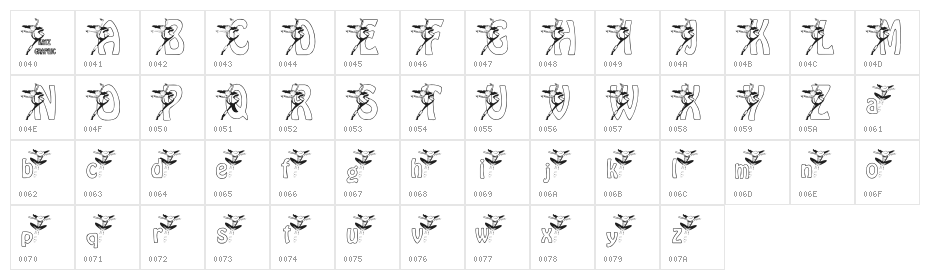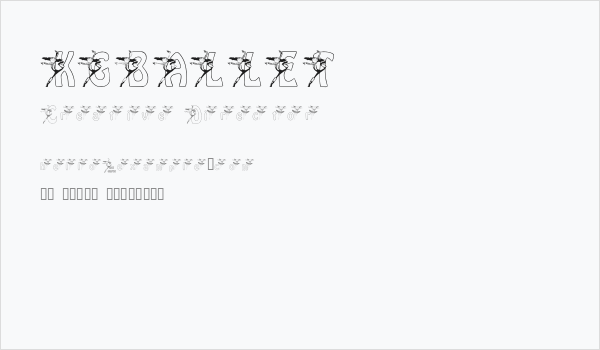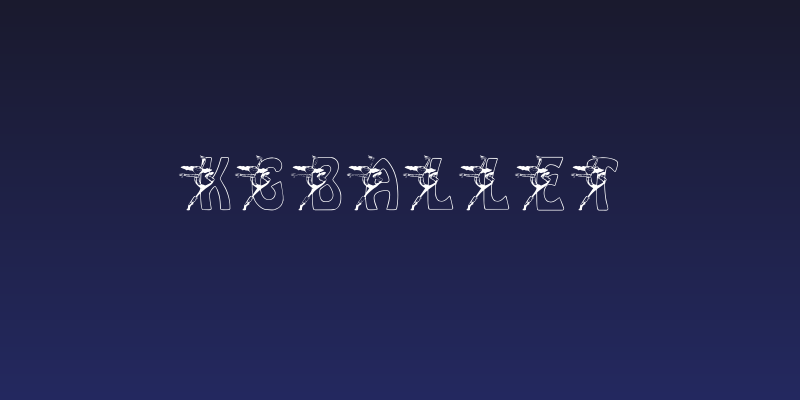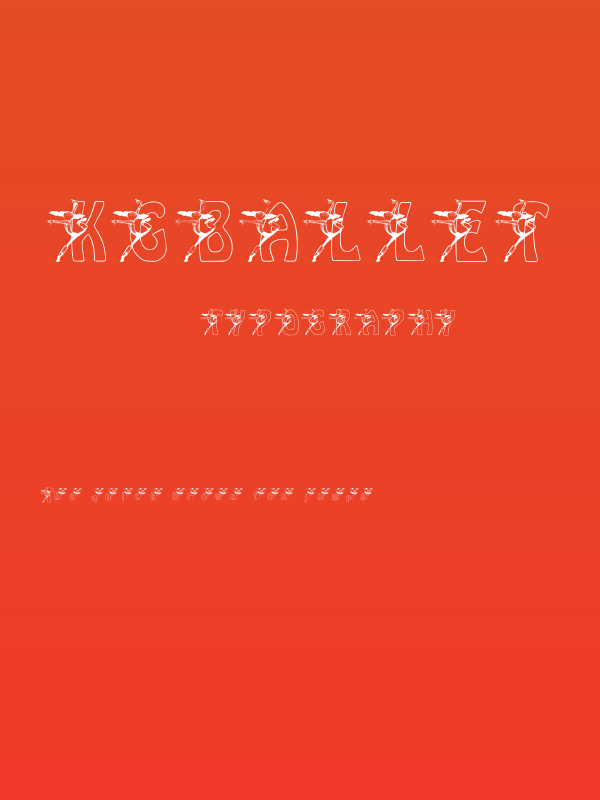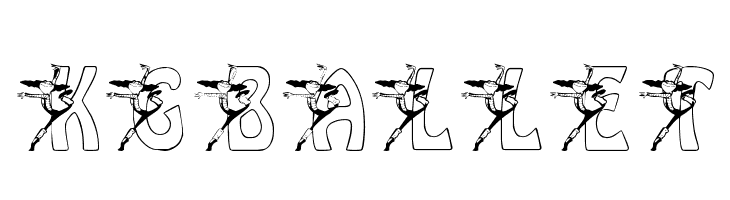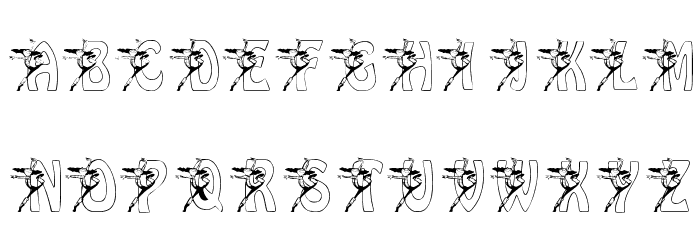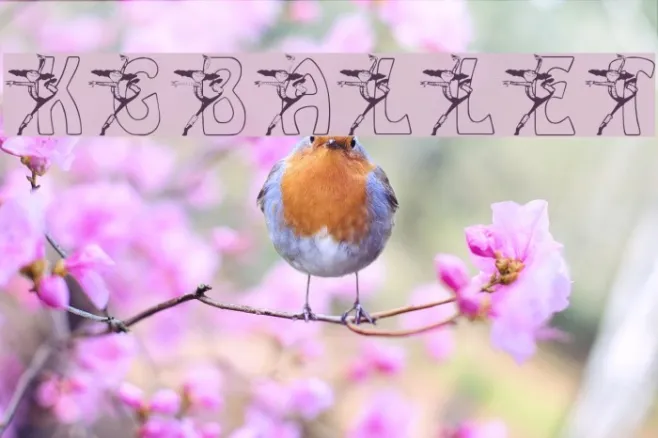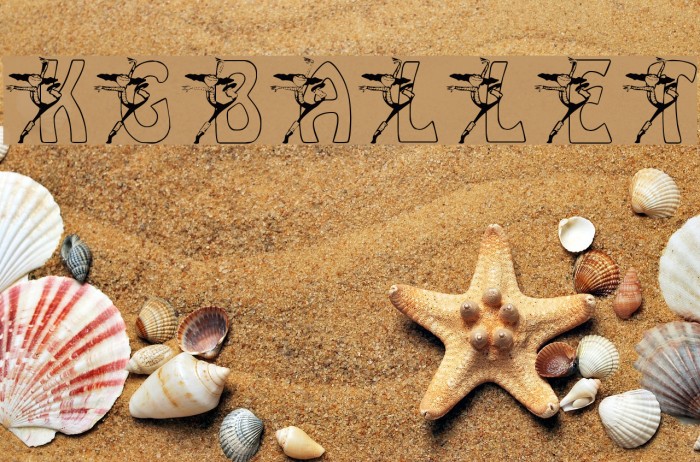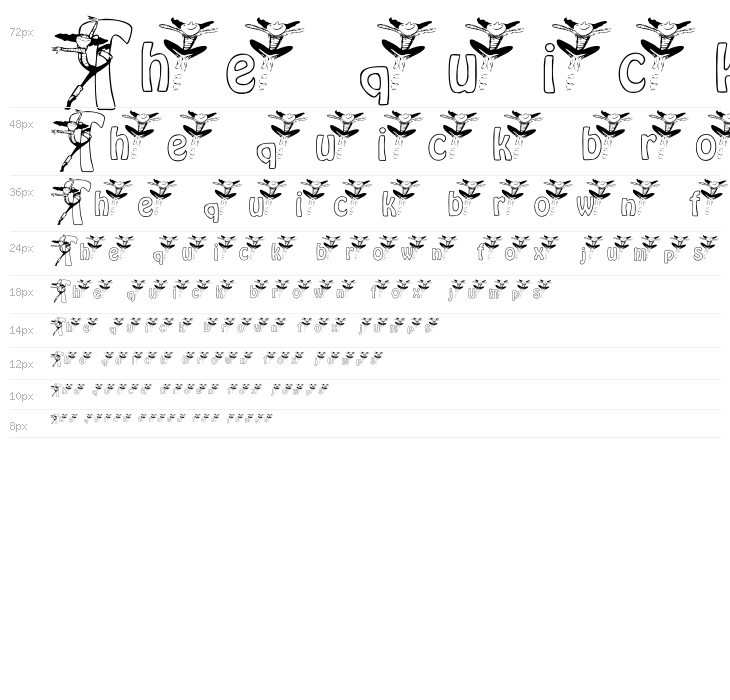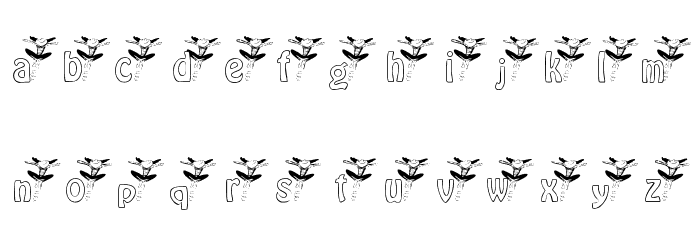
KGBALLET Font
KGBALLET Description
This decorative font features a unique blend of typography and illustration, where each letter is intertwined with a ballet dancer in various poses. The uppercase and lowercase letters are creatively integrated with the dancer's form, adding a dynamic and artistic flair. The characters are outlined, providing a light and airy feel, while the dancers add an element of movement and grace. This font stands out due to its artistic representation, making it suitable for projects that require a touch of elegance and creativity.
| Overall Style | Artistic, Elegant |
| Use Case | Logos, Posters, Invitations |
| Proposed Projects | Ideal for dance studio branding, artistic event posters, creative invitations, and any project seeking an elegant, artistic touch. |